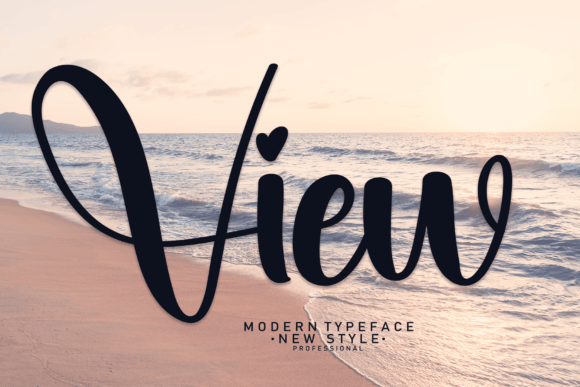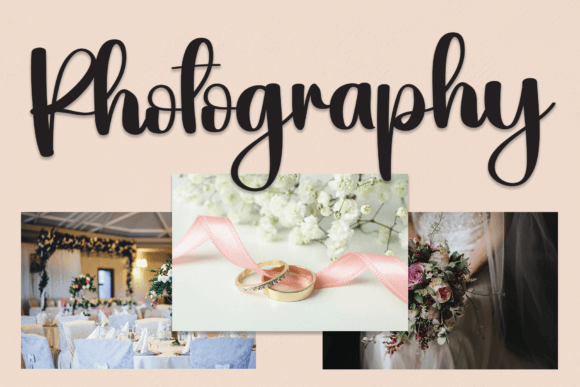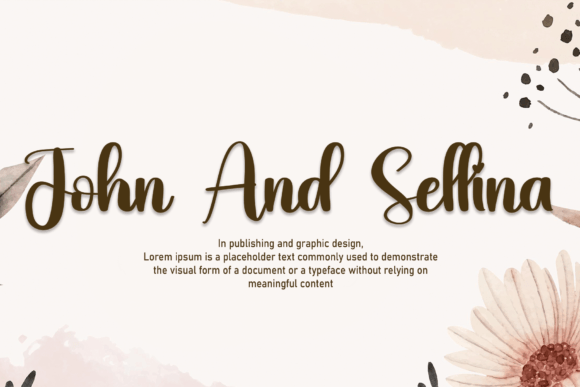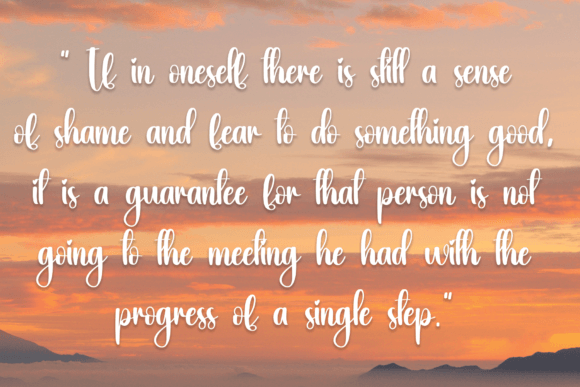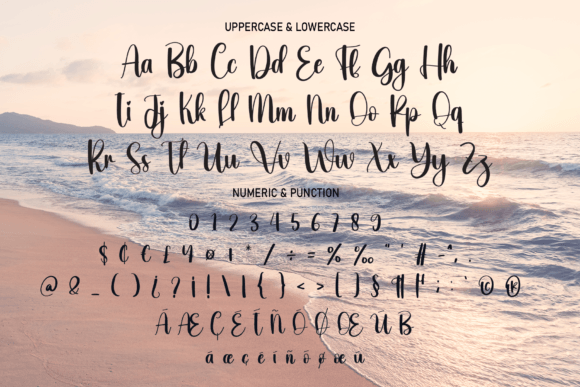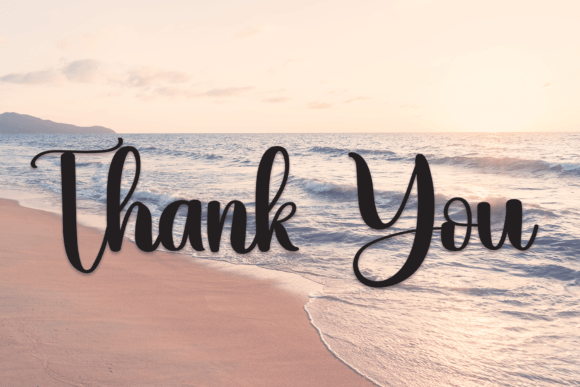
About View Font
View Font is an elegant and modern handwritten typeface designed to bring charm and sophistication to your creative work. With a smooth and natural flow, it adds a personal touch while remaining professional and versatile. Whether you’re creating wedding invitations or packaging a product, View Font helps your message shine.
This font was thoughtfully crafted to meet the needs of today’s creators. Its flowing strokes and subtle style reflect timeless handwriting, making it suitable for a wide range of projects. Best of all, it’s easy to read, even at smaller sizes, which adds to its usability across print and digital formats.
Ideal Uses for View Font
View Font is especially effective in projects that need a human, heartfelt, or luxurious feel. It adapts beautifully to many design types. For instance, it works perfectly for:
Wedding invitations and event stationery
Product packaging and labels
Social media post designs and logo creation
Advertising materials and business branding
Photography watermarks and lifestyle quotes
Greeting cards, posters, and printable art
Book covers and promotional banners
Its adaptability and polished appearance make it a great addition to your font collection.
Why You’ll Love View Font
View Font offers more than just a beautiful look—it delivers high readability and charm. Each character is carefully designed to give your text a natural, handwritten feel while keeping things clean and organized. That balance of artistry and clarity makes it ideal for both personal and professional use.
Additionally, the font includes uppercase and lowercase letters, punctuation, numbers, and multilingual support. It’s a great fit for both minimalist and more expressive compositions.